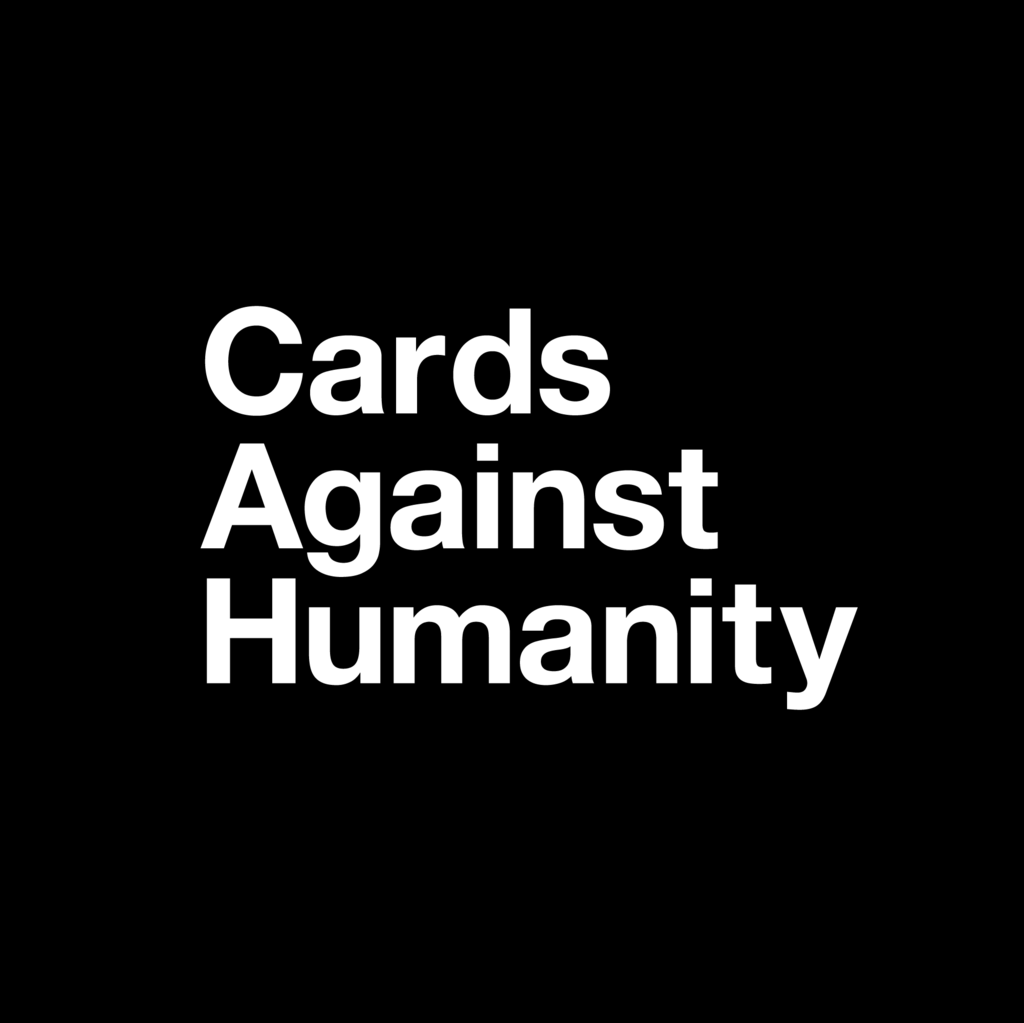
Cards Against Humanity Font
Fonts in UseCards Against Humanity is a party game where players fill in the blanks of a prompt with often crude or politically incorrect responses, resulting in humorous and often offensive combinations.
The font used for both the game's logo and the text on the cards is called Helvetica Neue 75 Bold. It's an updated Helvetica typeface with improved legibility, bolder punctuation marks, and better spacing for numbers.